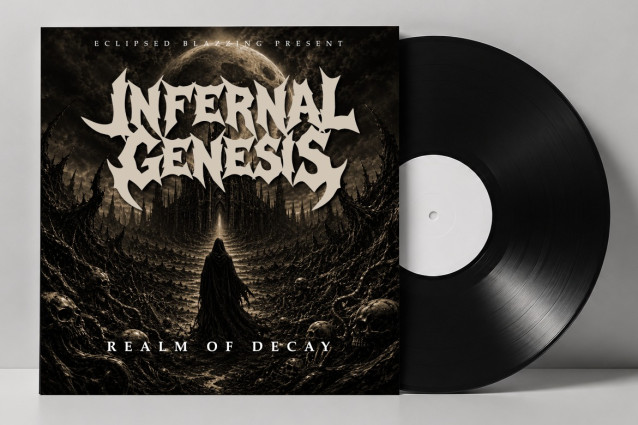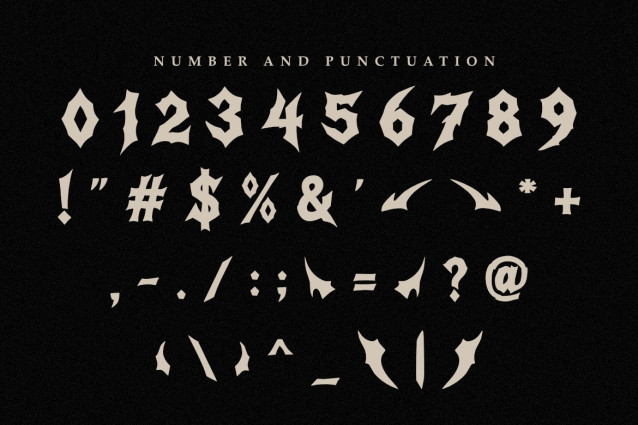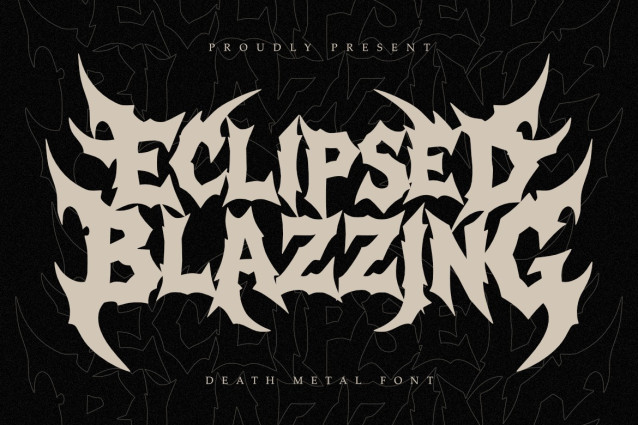
Eclipsed Blazzing Font
Eclipsed Blazzing Font – Brutal Death Metal for Band Logo, Album Cover, Merchandise Design
Sinner is a brutal professional font designed for sophisticated branding and high-end extreme design projects.
Its sharp and aggressive letterforms provide a contemporary yet timeless feel, striking a perfect balance between solid structural lines and modern metal aesthetics. This font embodies the essence of modern minimalism while maintaining a sense of raw power and refinement, making it perfect for logos, corporate materials, and professional presentations within the music industry.